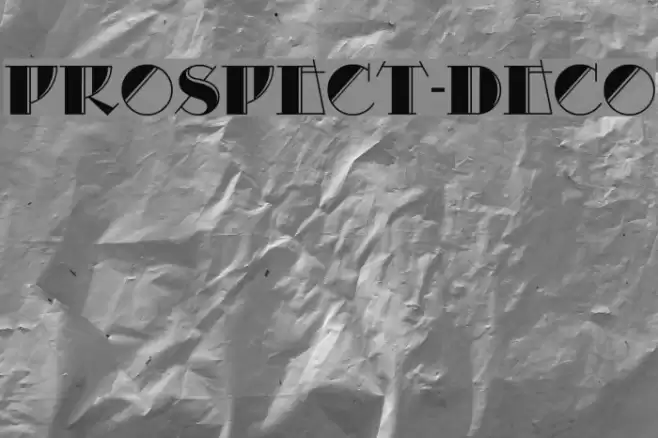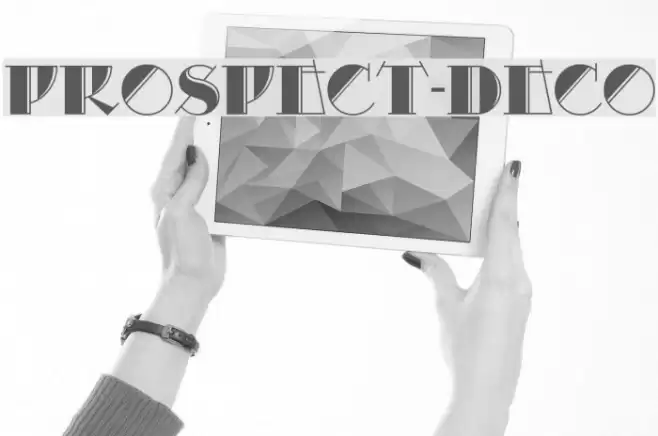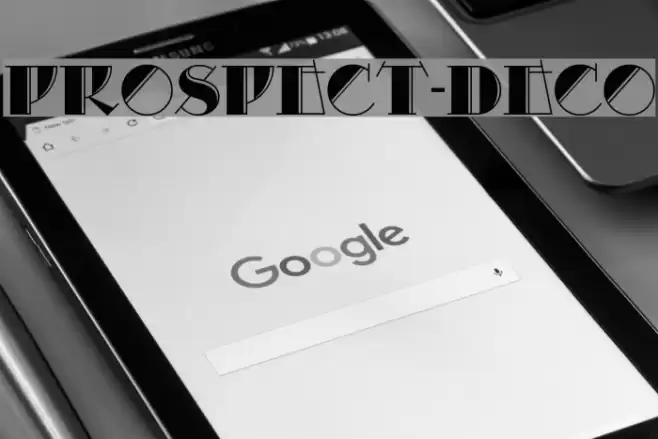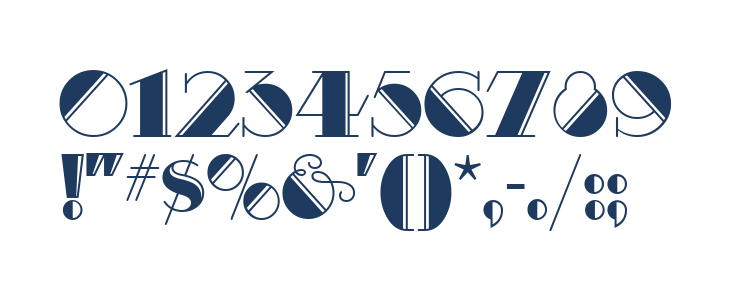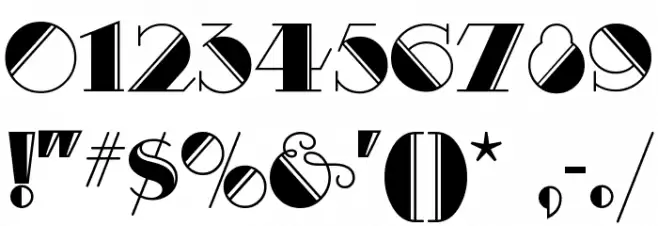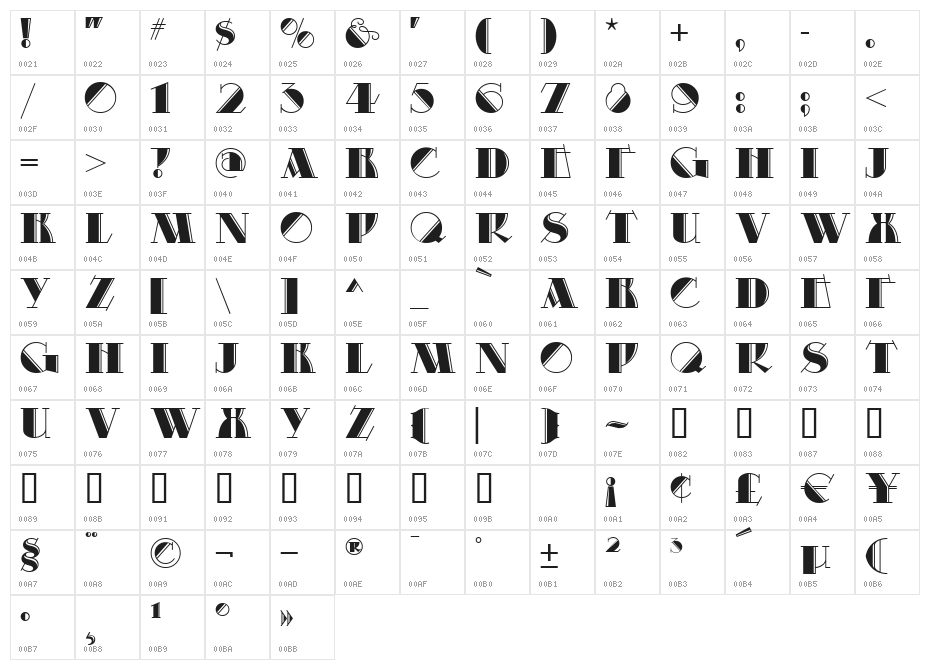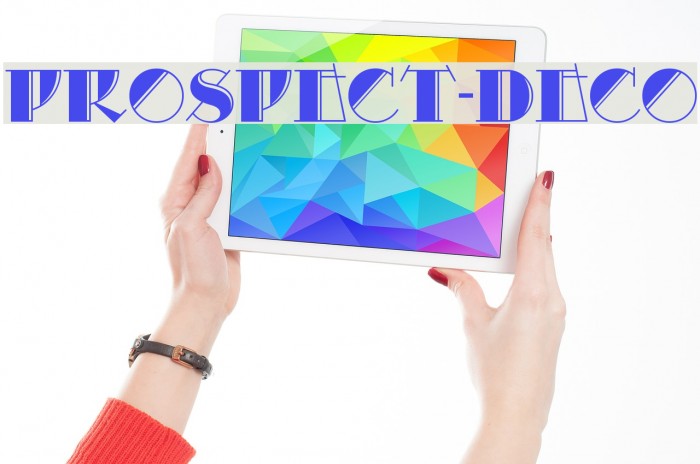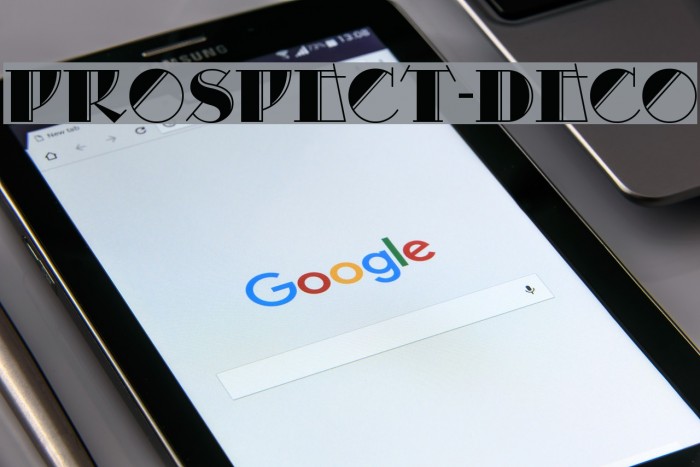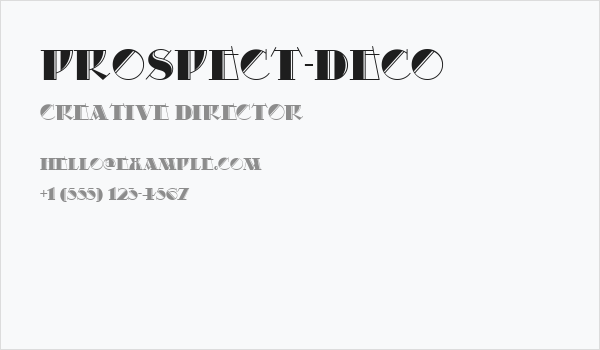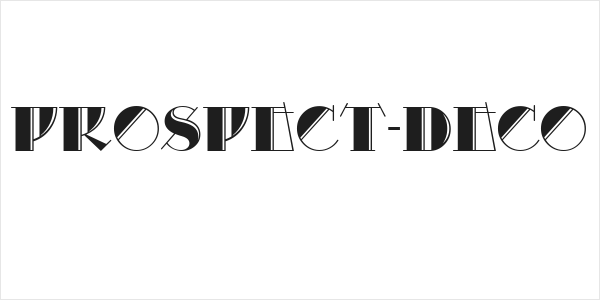
Prospect-Deco Font
Prospect-Deco Description
This font exhibits a bold and striking Art Deco style, characterized by its geometric shapes and sharp angles. The uppercase letters are particularly distinctive, with a combination of thick and thin lines that create a sense of movement and elegance. The lowercase letters maintain this aesthetic, offering a cohesive look throughout. Numbers and special characters follow the same design principles, ensuring consistency across all glyphs. The font's unique style makes it ideal for projects that require a touch of vintage glamour and sophistication.
A bold, Art Deco-inspired font with geometric shapes and sharp angles from Uncategorized fonts.
- Proposed Projects: Ideal for branding, posters, invitations, and any design project that seeks a vintage or glamorous touch.
- Overall Style: Vintage